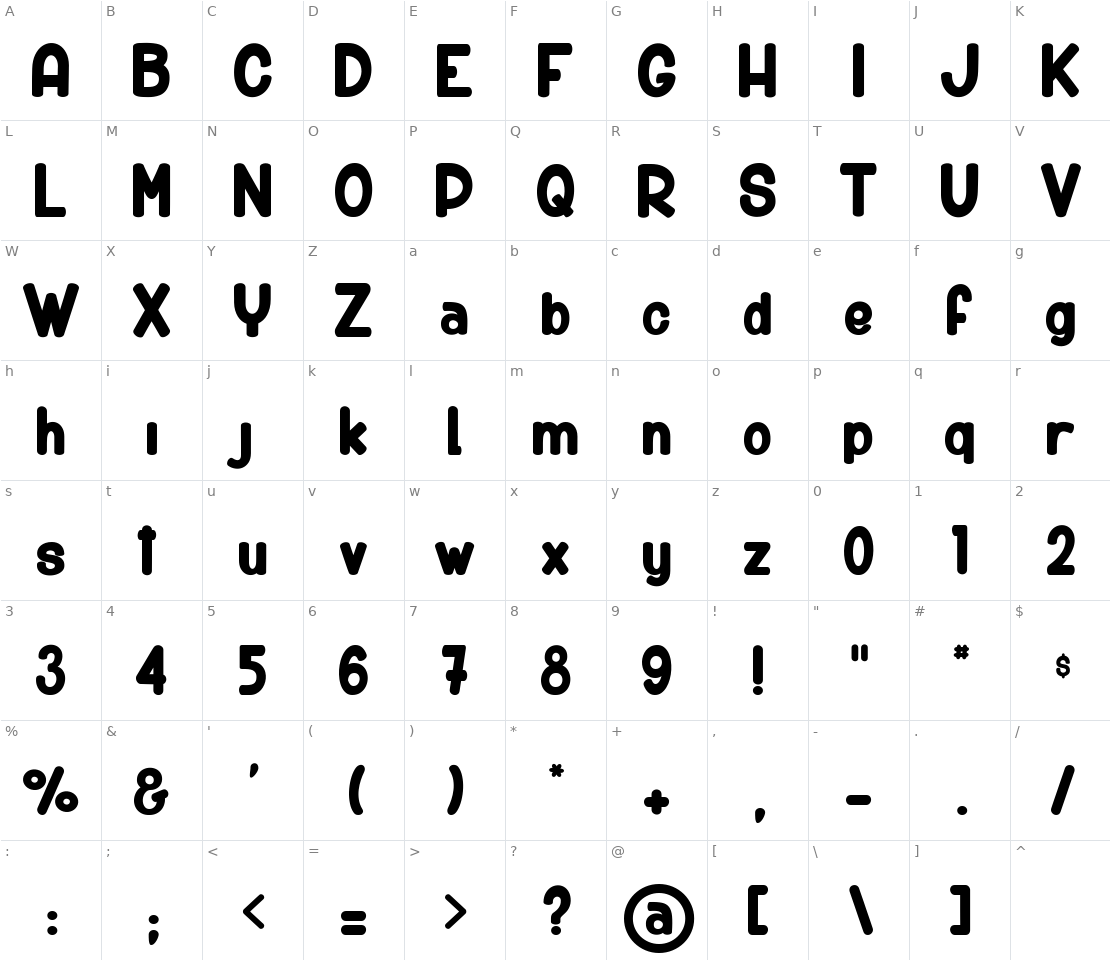
Big Car Short Gun
Big Car Short Gun is a heavy, condensed display face from dcoxy (Greg Medina) with thick rounded letterforms that feel bold and approachable at the same time. The condensed proportions pack a lot of visual punch into tight spaces, while the soft, rounded edges keep things from feeling too aggressive. Best for headlines, posters, and branding where you want something chunky and playful without sharp corners getting in the way.